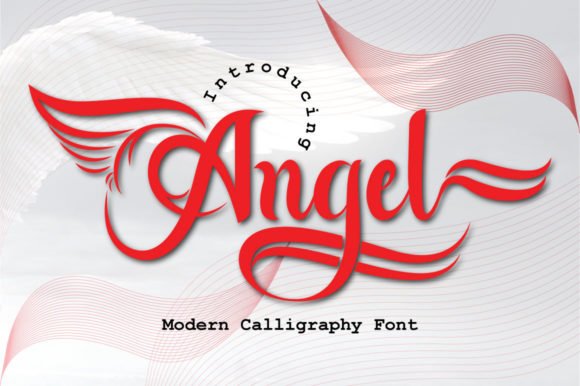
Discover the Timeless Elegance of Angel Font
Have you ever been working on a design project, pouring your heart and soul into every detail, and suddenly, a spark of inspiration hits you? That’s exactly what happened when I stumbled upon the Angel Font. Its intricate curves and flowing lines seemed to dance on the screen, beckoning me to create something truly beautiful.
Angel Font is a script font like no other, designed to add a touch of whimsy and sophistication to any design. With its PUA encoding, you can access a wide range of glyphs and ligatures, making it perfect for designers who crave a little extra flair in their work.
Whether you’re a seasoned pro or just starting out, the Angel Font is an invaluable tool in your design arsenal. Its unique style and versatility make it a must-have for any creative looking to elevate their designs to the next level.
Key Features of Angel Font
- Font Style: Angel Font is a beautiful, elegant, and cursive script font, perfect for adding a touch of sophistication to your designs.
- Character Count: With over 500 characters, including uppercase and lowercase letters, punctuation, and special characters, Angel Font offers a wide range of possibilities.
- Unique Characteristics: Angel Font features a unique, flowing design with subtle flourishes and connections between letters, making it perfect for titles, headings, and other display text.
Angel Font Review
Overall, I think Angel Font is a beautiful, elegant font that can add a touch of sophistication to any design project. ✨ It has a unique, cursive feel that works well for titles, headings, and other text elements where a bit of flair is needed.
- Unique, elegant design that adds a touch of sophistication to designs
- Works well for titles, headings, and other text elements where a bit of flair is needed
However, there are a few limitations to consider. ⚠️ For one, Angel Font can be quite dense and may not be suitable for large blocks of text. Additionally, some users may find the font a bit too ornate or over-the-top, which can be a turn-off.
- Can be quite dense and may not be suitable for large blocks of text
- May be too ornate or over-the-top for some users
- Not ideal for body text or other situations where readability is crucial
Overall, I would recommend Angel Font for designs where a touch of elegance and sophistication is needed. However, be sure to use it judiciously and in moderation to avoid overwhelming your audience.
Tips for Getting the Most Out of Angel Font
Here are some tips to get the most out of Angel Font:
- Use Angel Font in combination with other fonts to create a visually appealing design.
- Customize the font style to match your brand’s aesthetic.
Angel Font is commonly used in:
- Branding and logos.
- Typography-based art and design.
Alternatives to Angel Font
Cream Soda is a modern script font that resembles Angel Font but with a more casual and friendly feel. It’s ideal for use in logos, branding, and advertising materials where a soft, approachable look is desired. Compared to Angel Font, Cream Soda has a more relaxed and informal tone.
Caslon Script
Caslon Script is a elegant and refined script font that is similar to Angel Font in its classic and sophisticated feel. It’s suitable for use in high-end branding, luxury products, and formal invitations where a sense of tradition and heritage is desired. Compared to Angel Font, Caslon Script has a more formal and polished tone.
Lato Script
Lato Script is a clean and minimalist script font that is similar to Angel Font in its modern and sleek feel. It’s ideal for use in digital products, apps, and websites where a simple and easy-to-read font is desired. Compared to Angel Font, Lato Script has a more modern and minimalistic tone.